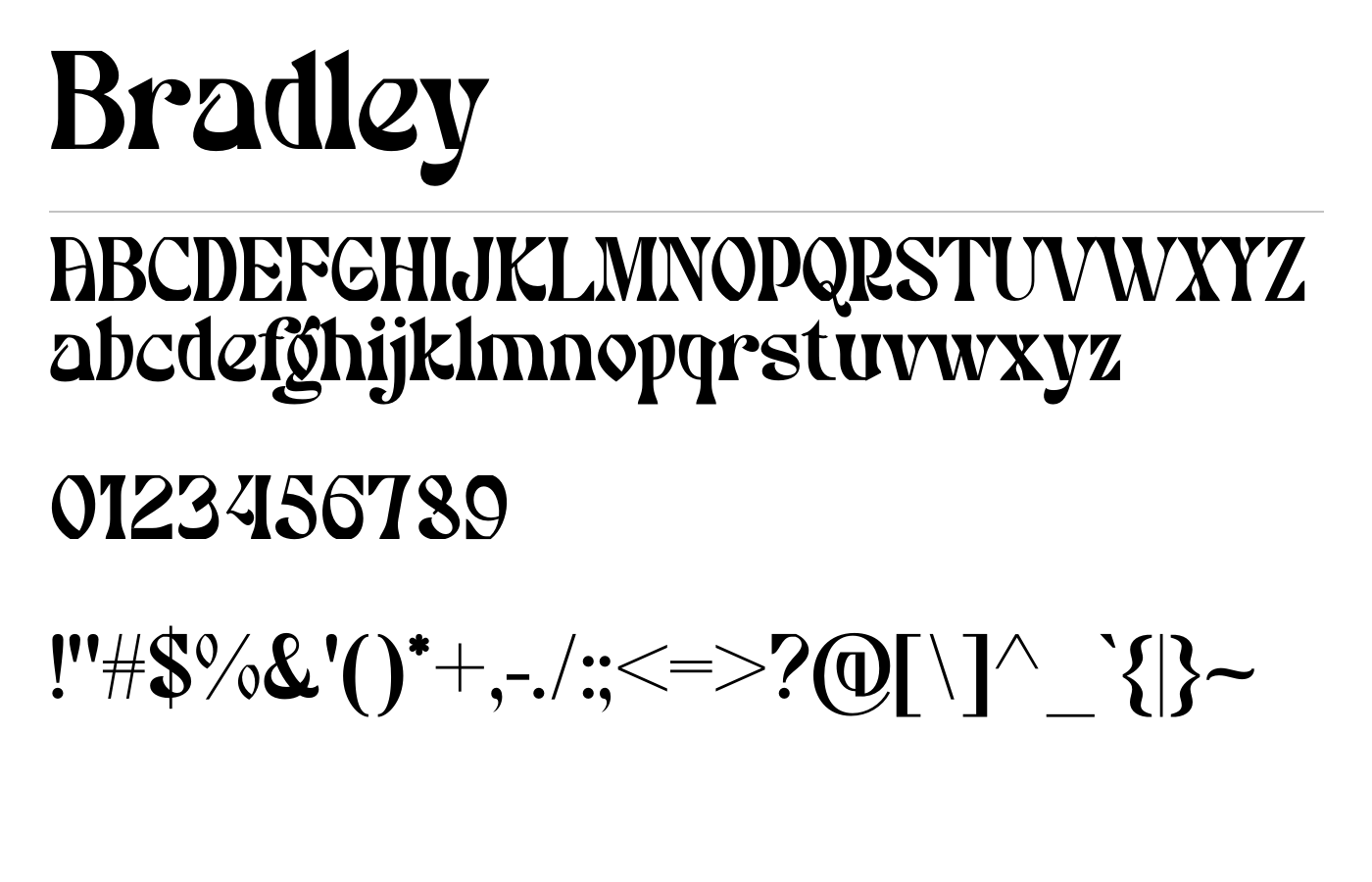
Bradley Font is a distinctive serif typeface with strong stroke contrasts and sharp, angular serifs that give it a bold and expressive character. Its unique letterforms and moderate x-height create a dramatic, vintage feel, making it ideal for eye-catching headlines, logos, and artistic branding that want to convey sophistication with a touch of flair.
Bradley Font
About Bradley Font
| Font family | Bradley Font |